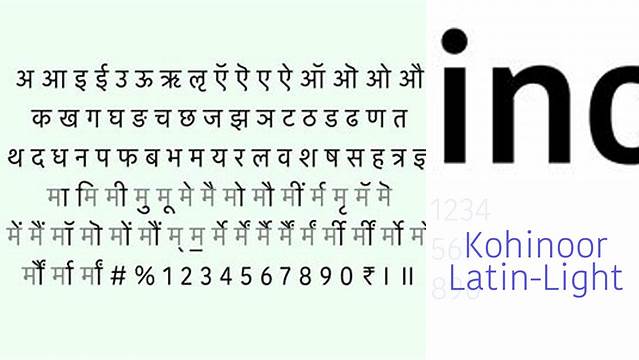
Kohinoor Font Family Overview
The Kohinoor font family is a versatile typeface known for its clarity and elegance. Its clean design makes it suitable for a wide range of applications, from body text to headlines. It's essential to understand the family's history and design characteristics before diving into where to get a Kohinoor font free download. The Kohinoor family encompasses several scripts, including Devanagari, Bengali, and more, making it a globally inclusive typeface. Its modern yet classic appearance ensures readability across different media, which is why it's a favorite among designers.
Why Choose Kohinoor Font?
Why should you choose Kohinoor font over other fonts? Well, there are several compelling reasons. First off, its exceptional readability makes it ideal for lengthy text blocks. Imagine reading a long article or document – you want a font that’s easy on the eyes, and Kohinoor delivers just that. Secondly, the font's versatility means you can use it for almost anything, from website designs to print materials. Its neutral yet sophisticated look adds a touch of class without being overly distracting. Lastly, the availability of multiple weights and styles within the Kohinoor font family gives you the flexibility to create visual hierarchy and emphasis in your designs. So, if you're after a reliable and adaptable typeface, Kohinoor is definitely worth considering.
Kohinoor Font Variations and Styles
The Kohinoor font isn't just a single typeface; it's a whole family with various styles and weights. This is one of its biggest strengths! You've got everything from light and regular weights for body text to bold and black weights for headlines. Plus, different scripts like Devanagari, Bengali, and Gujarati add to its versatility, making it suitable for multilingual projects. Understanding these variations will help you make the most of the Kohinoor font in your designs. Experimenting with different weights and styles can add visual interest and hierarchy to your text, creating a more engaging reading experience.
Kohinoor Devanagari Font: A Deep Dive
Let’s take a closer look at the Kohinoor Devanagari font. Devanagari is the script used for Hindi, Marathi, and Nepali, among other languages. The Kohinoor Devanagari version is meticulously crafted to ensure readability and aesthetic appeal. It maintains the font family's clean and modern look while adhering to the unique characteristics of the Devanagari script. This makes it an excellent choice for projects targeting these linguistic communities. The attention to detail in the letterforms ensures that the text is both beautiful and functional, a crucial factor for effective communication.
Kohinoor Bengali Font: Key Features
Next up, we have the Kohinoor Bengali font. Bengali, also known as Bangla, is one of the most spoken languages in the world, primarily in Bangladesh and India. The Kohinoor Bengali version is designed with the same principles of clarity and elegance as the other Kohinoor fonts. It features distinctive Bengali letterforms that are both easy to read and visually appealing. Using this font can significantly enhance the readability and aesthetic quality of Bengali text, making it a valuable asset for projects targeting Bengali speakers.
Kohinoor Gujarati Font: Design Elements
Now, let's explore the Kohinoor Gujarati font. Gujarati is spoken by millions of people in India and around the world. The Kohinoor Gujarati variant is carefully crafted to preserve the unique characteristics of the Gujarati script while maintaining the overall style of the Kohinoor family. This font is perfect for creating clear and engaging content in Gujarati, whether it's for websites, print materials, or digital publications. Its design elements prioritize readability and visual appeal, ensuring effective communication.
Using Kohinoor Font in Web Design
Thinking of using Kohinoor font for your website? Great choice! Its clean and legible design makes it a fantastic option for web typography. Whether you’re designing a blog, an e-commerce site, or a portfolio, Kohinoor can help you create a professional and user-friendly experience. Remember to consider factors like font size, line height, and contrast to ensure optimal readability. Using different weights and styles can also help you create a visual hierarchy, guiding your visitors through your content effectively. Plus, the Kohinoor font family's versatility means you can use it for both headings and body text, creating a cohesive and polished look.